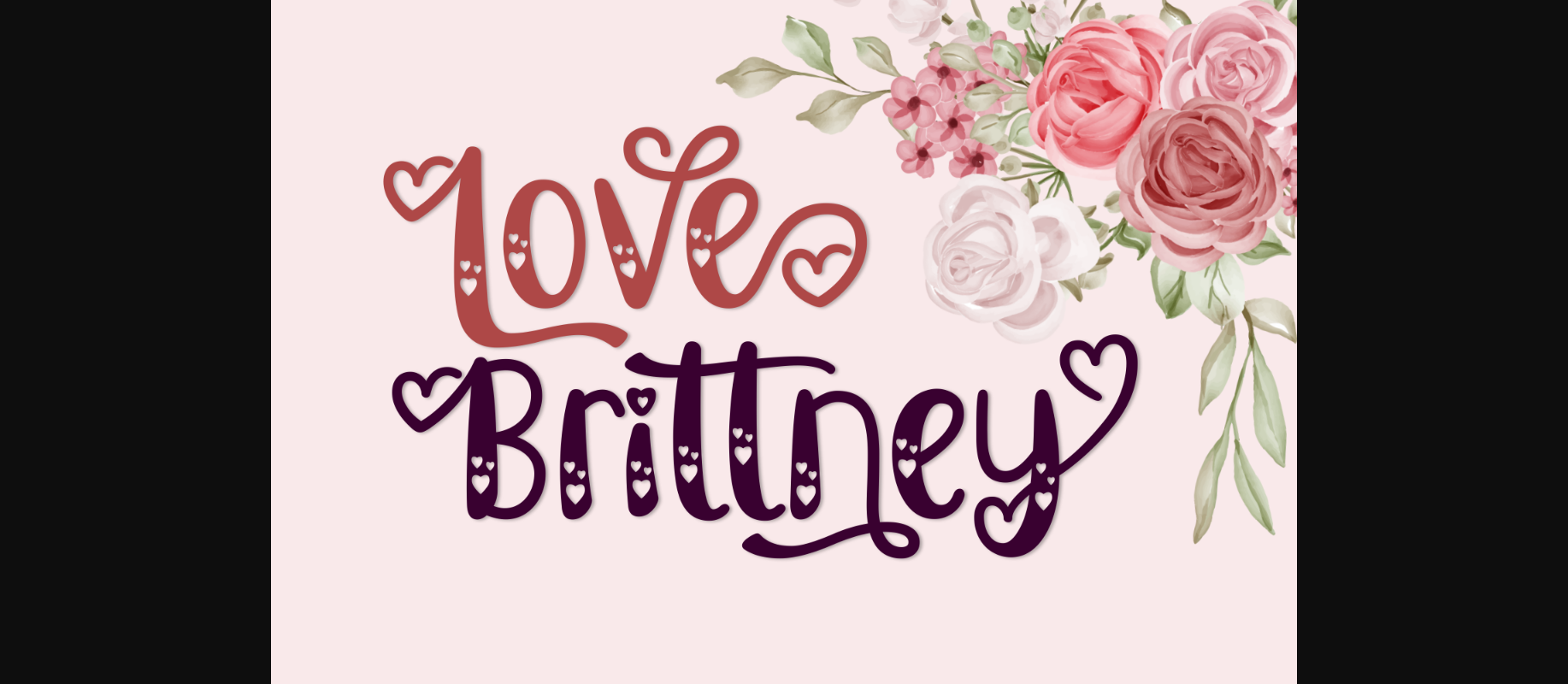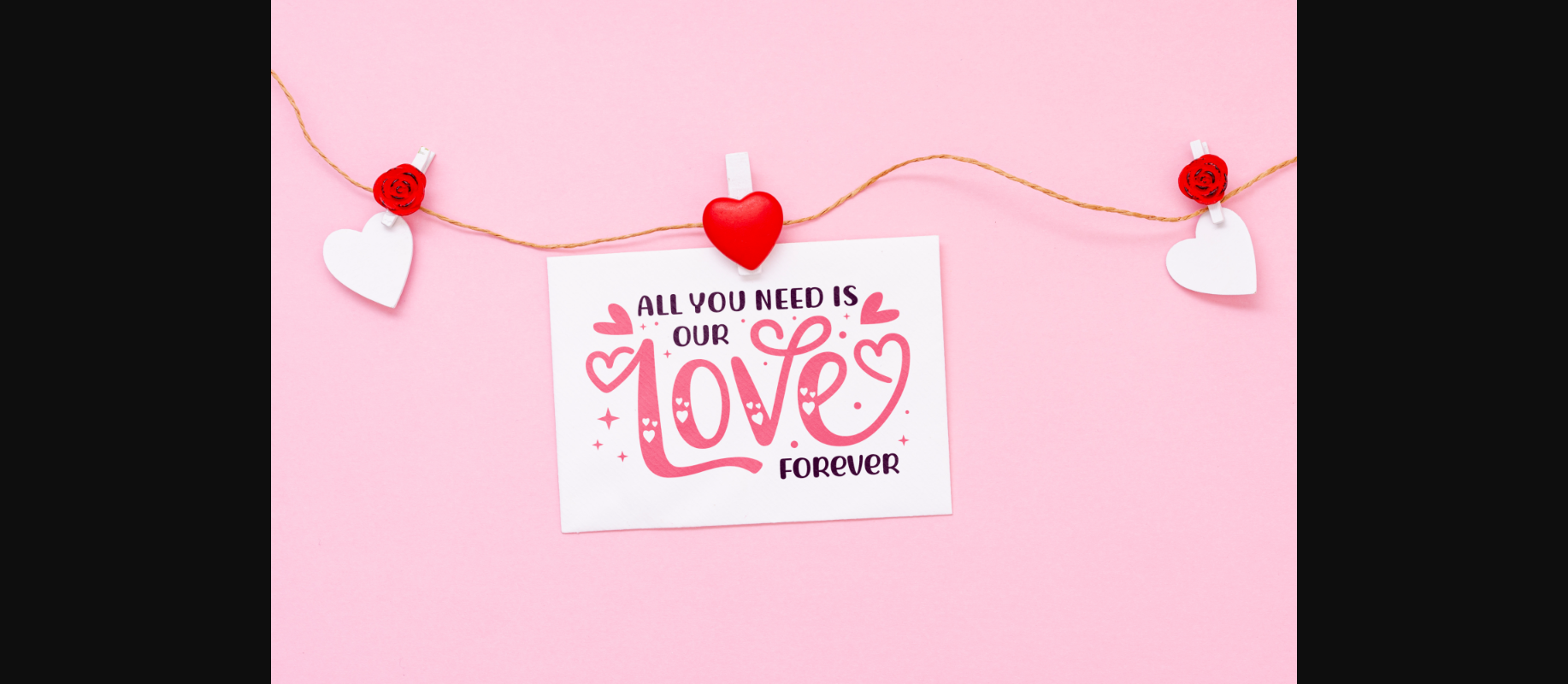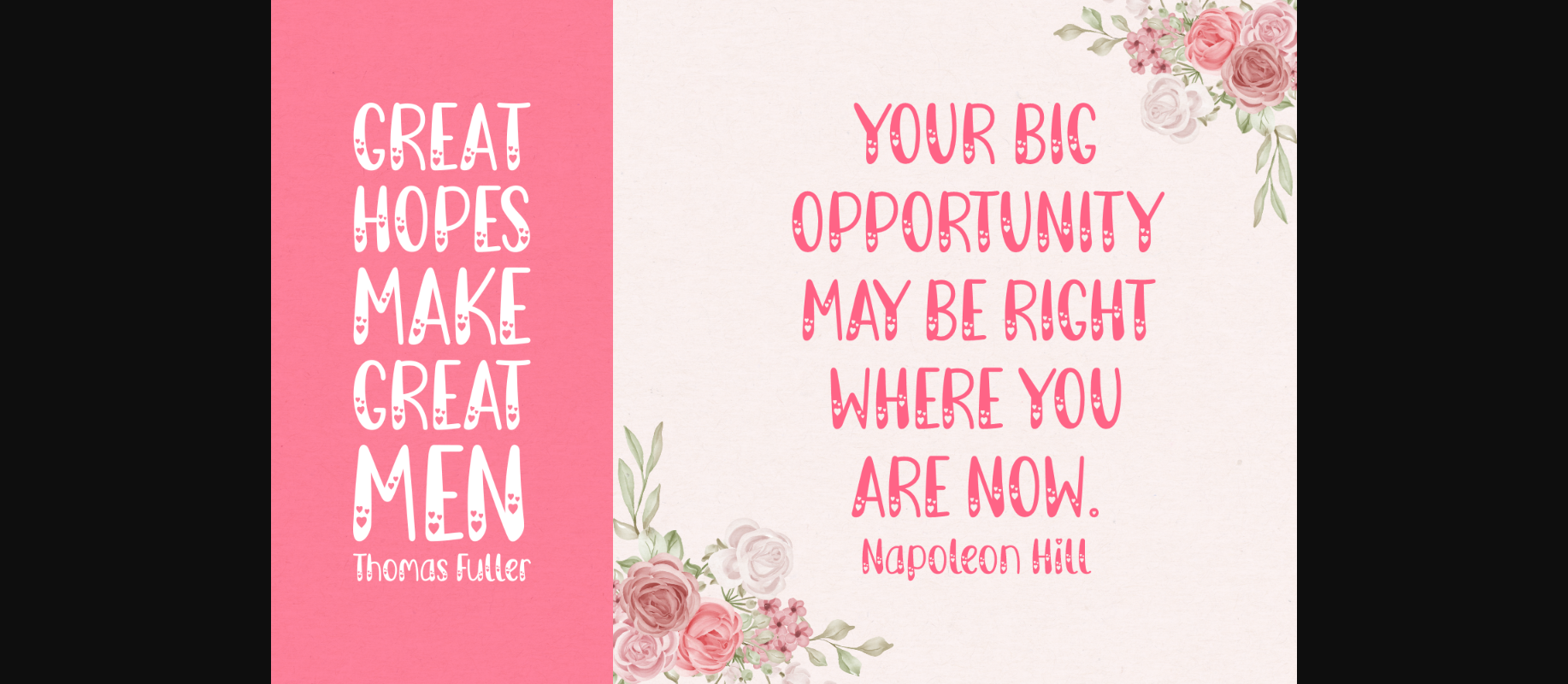
Love Brittney Font
About Love Brittney Font
Love Brittney is a chic and romantic decorative font. It features tiny hearts on each elements. This font is PUA encoded which means you can access all of the glyphs and swashes with ease!